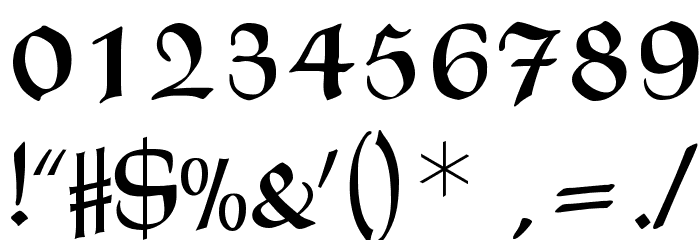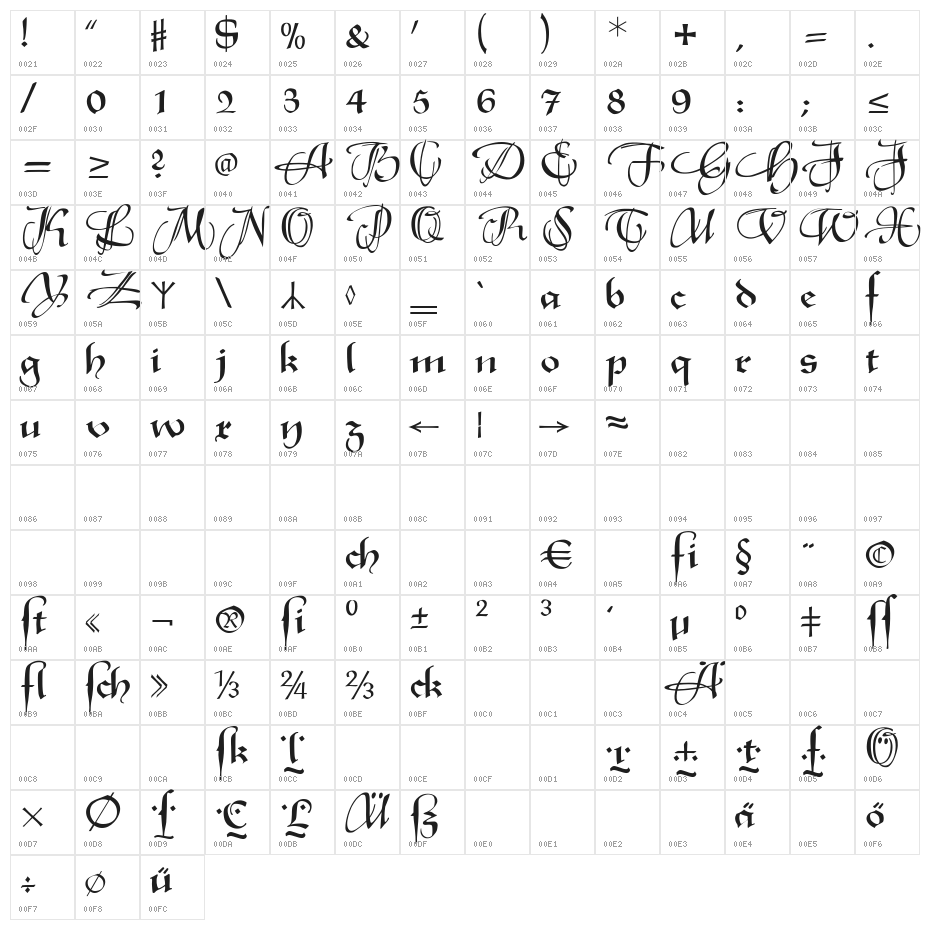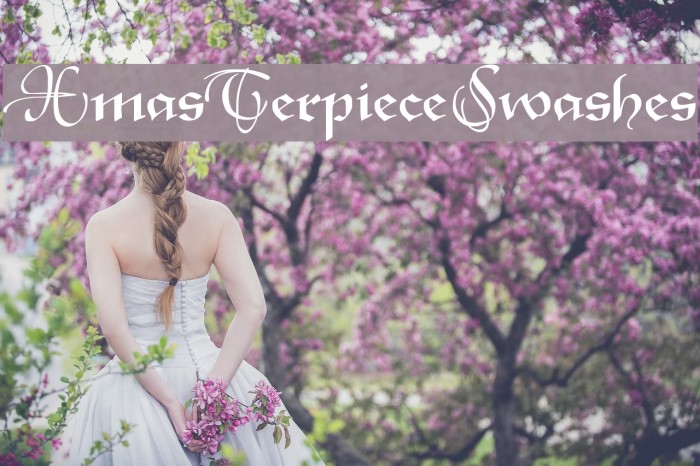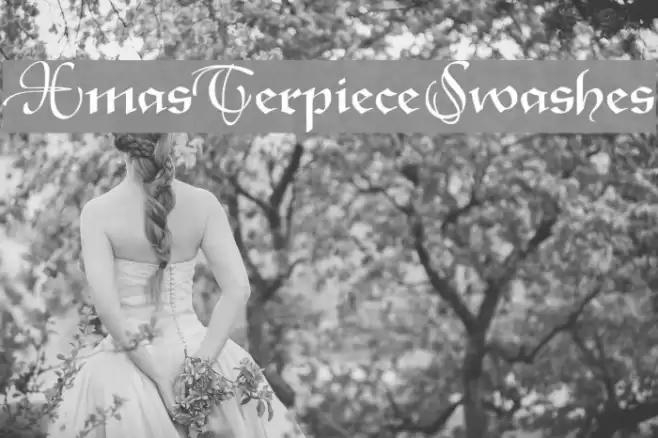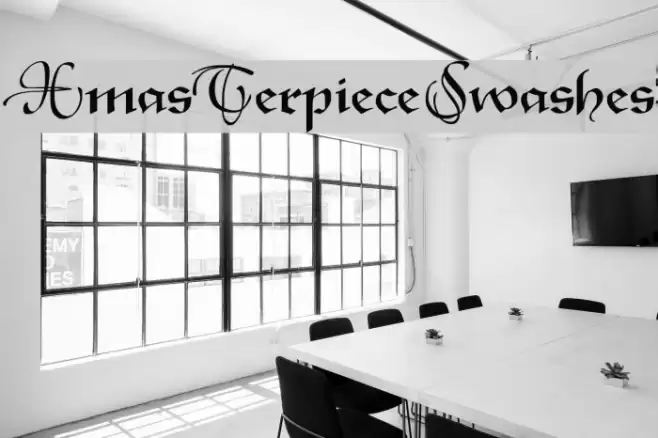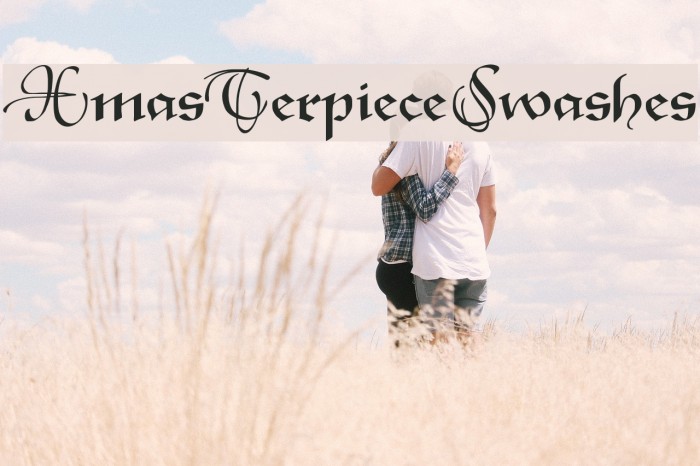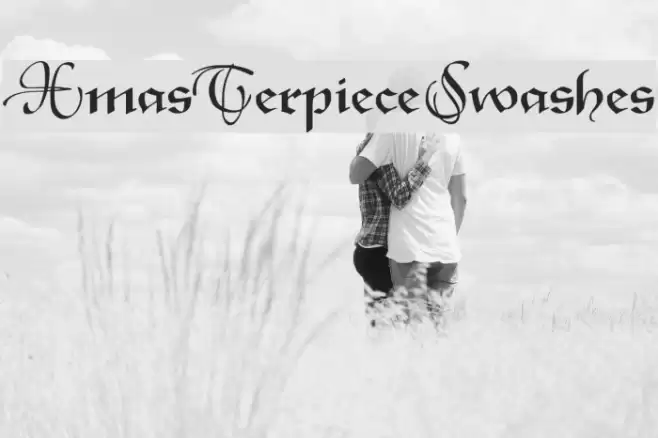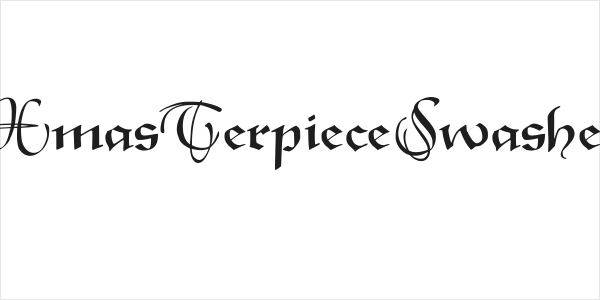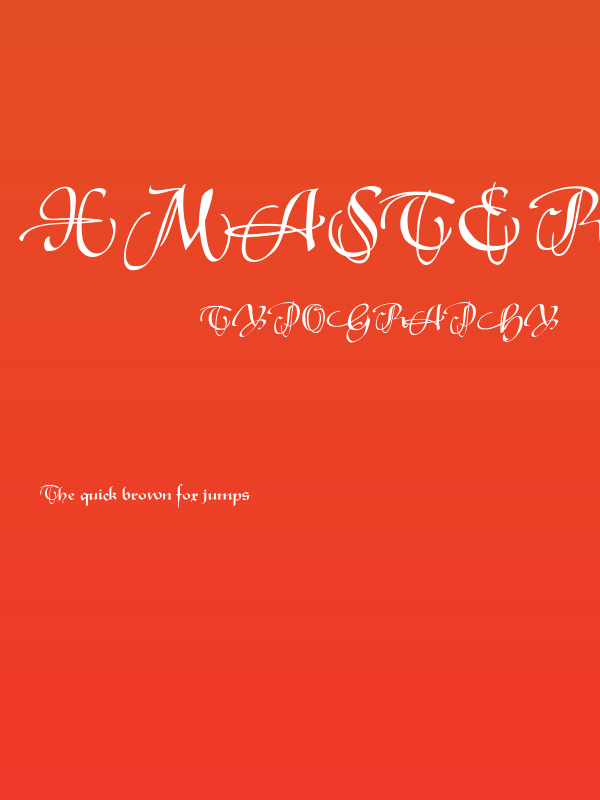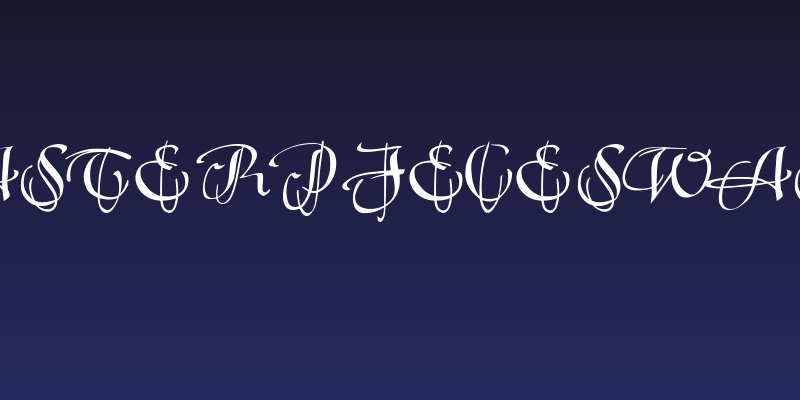
XmasTerpieceSwashes Font
XmasTerpieceSwashes Description
This font features an elegant and intricate design, combining elements of calligraphy and gothic styles. The uppercase letters are adorned with elaborate swashes and flourishes, giving them a decorative and festive appearance. The lowercase letters maintain a more traditional blackletter style, with sharp angles and a bold presence. The numerals and special characters are consistent with the overall theme, offering a cohesive look. This font is perfect for creating a dramatic and ornamental effect, suitable for holiday-themed projects or any design requiring a touch of sophistication and flair.